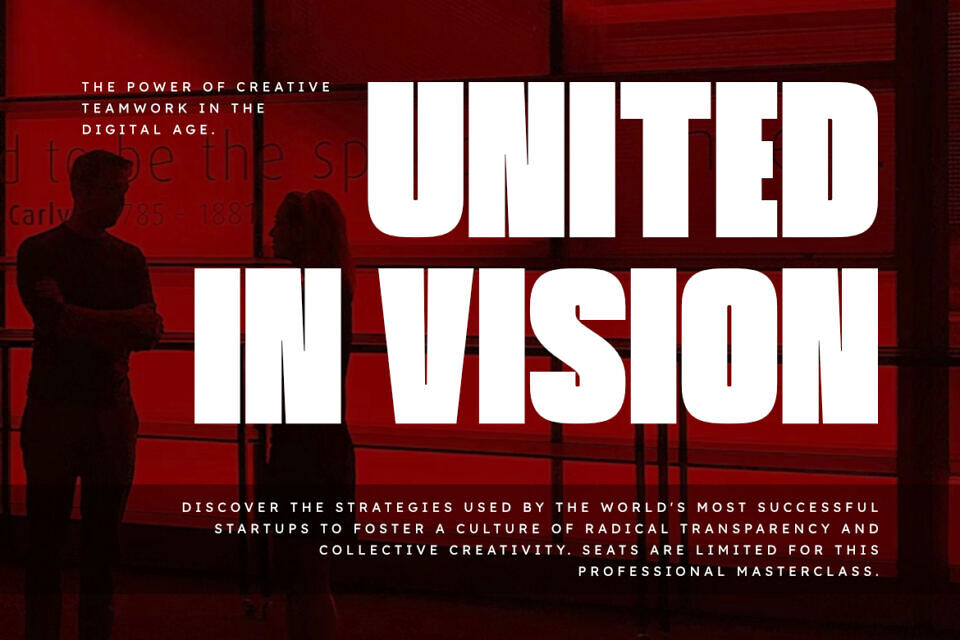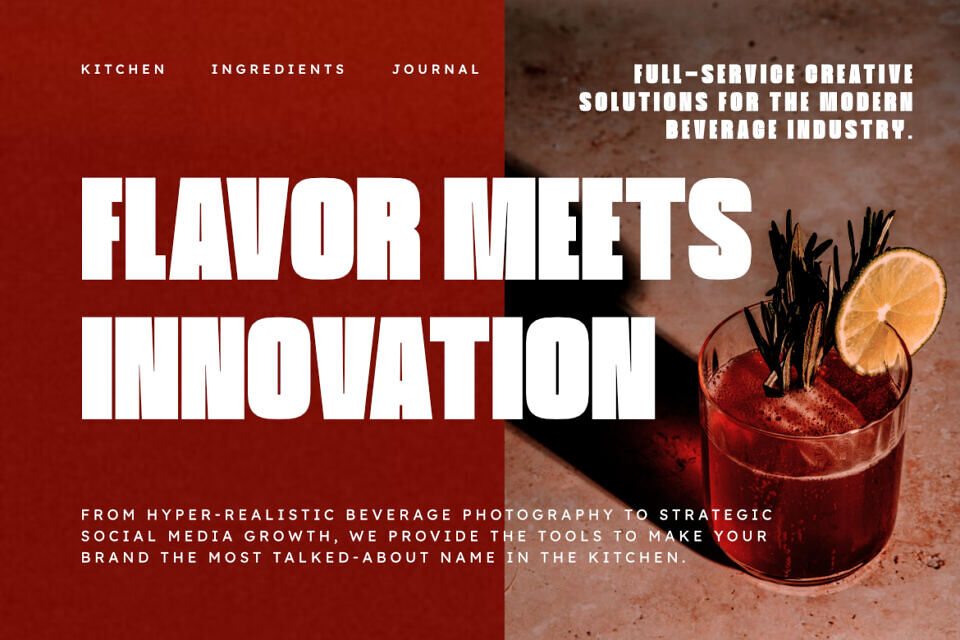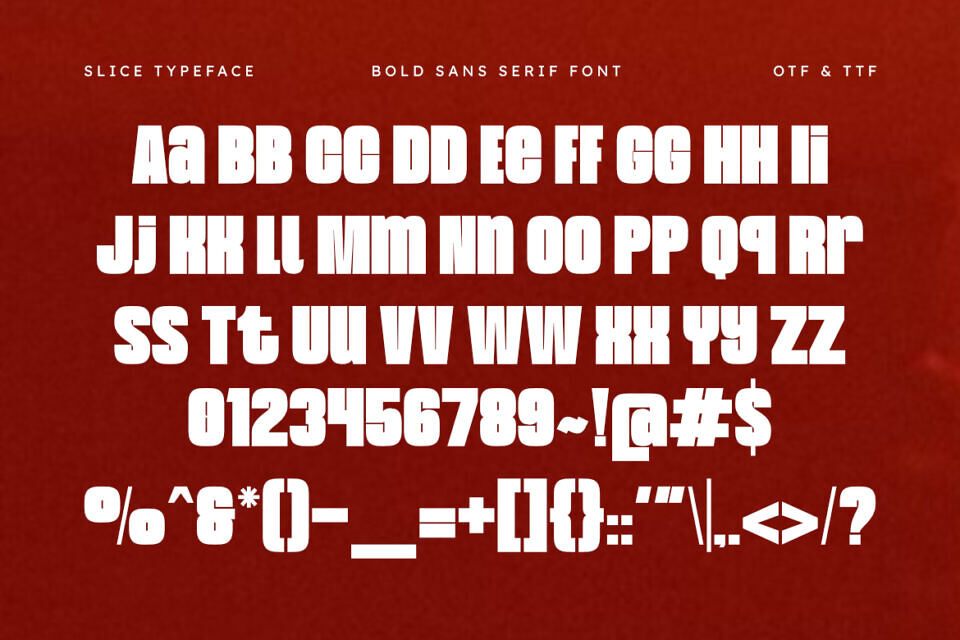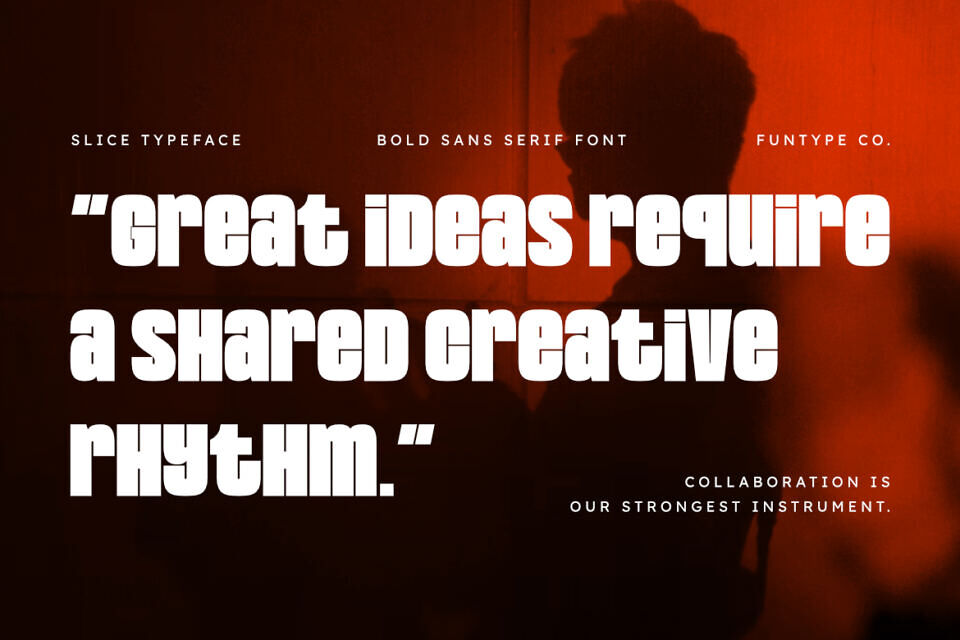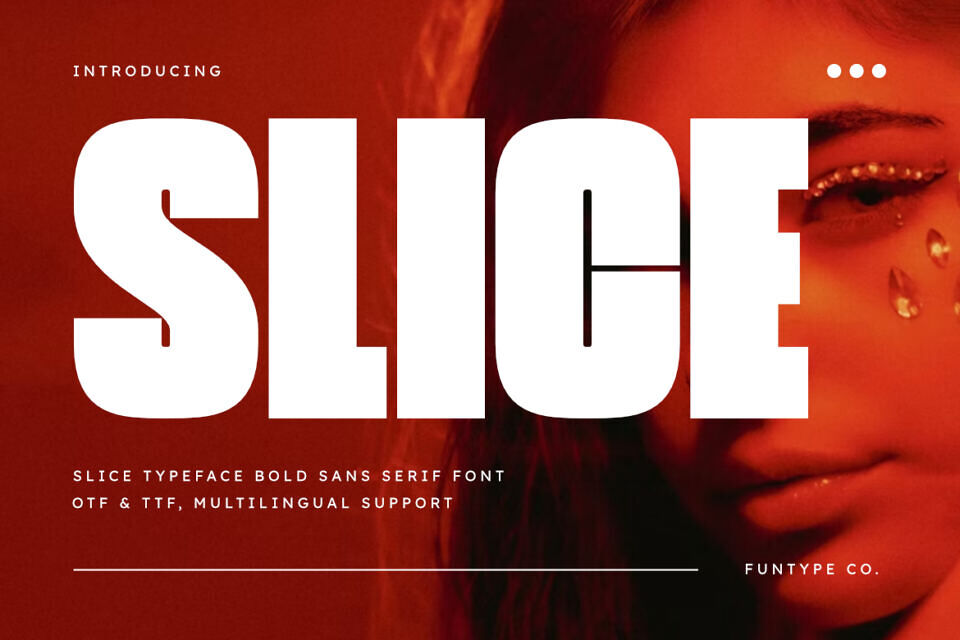
Slice Font
Slice is a sophisticated and powerful bold sans serif font, thoughtfully designed to capture the essence of modern impact and industrial storytelling. With its heavy geometric structure and clean lines, Slice offers a professional aesthetic that brings a touch of commanding presence to any creative project.
Whether you are crafting a striking movie poster, a sleek technology logo, or bold editorial layouts, Slice provides a seamless blend of contemporary flair and timeless authority.